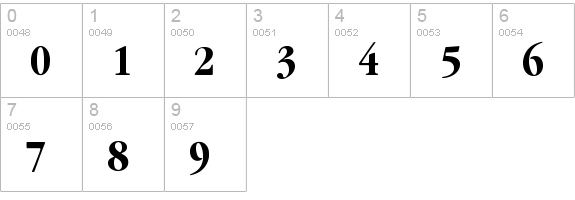
Garamond* Condensed Bold Font Details
Garamond* Condensed Bold is a strong, high-contrast, condensed-width variant in the Garamond* typeface family \xE2\x80\x94 well suited to headlines, attention-grabbing titles, and strong calls-to-action.
Garamond* Condensed Bold font is a striking and sophisticated typeface that exudes elegance and professionalism. With its bold and condensed design, this font is perfect for making a bold statement in headlines, titles, and other prominent text. The sleek lines and sharp edges of Garamond* Condensed Bold add a modern touch to any design project, while still maintaining a classic and timeless appeal. Best of all, Garamond* Condensed Bold font is available for free download at FontsMarket.com. This means that you can easily access this stylish and versatile font to enhance your projects without any cost. Whether you're working on a print design, digital project, or anything in between, Garamond* Condensed Bold font is sure to make a lasting impression. Download it today and elevate your typography game to the next level!